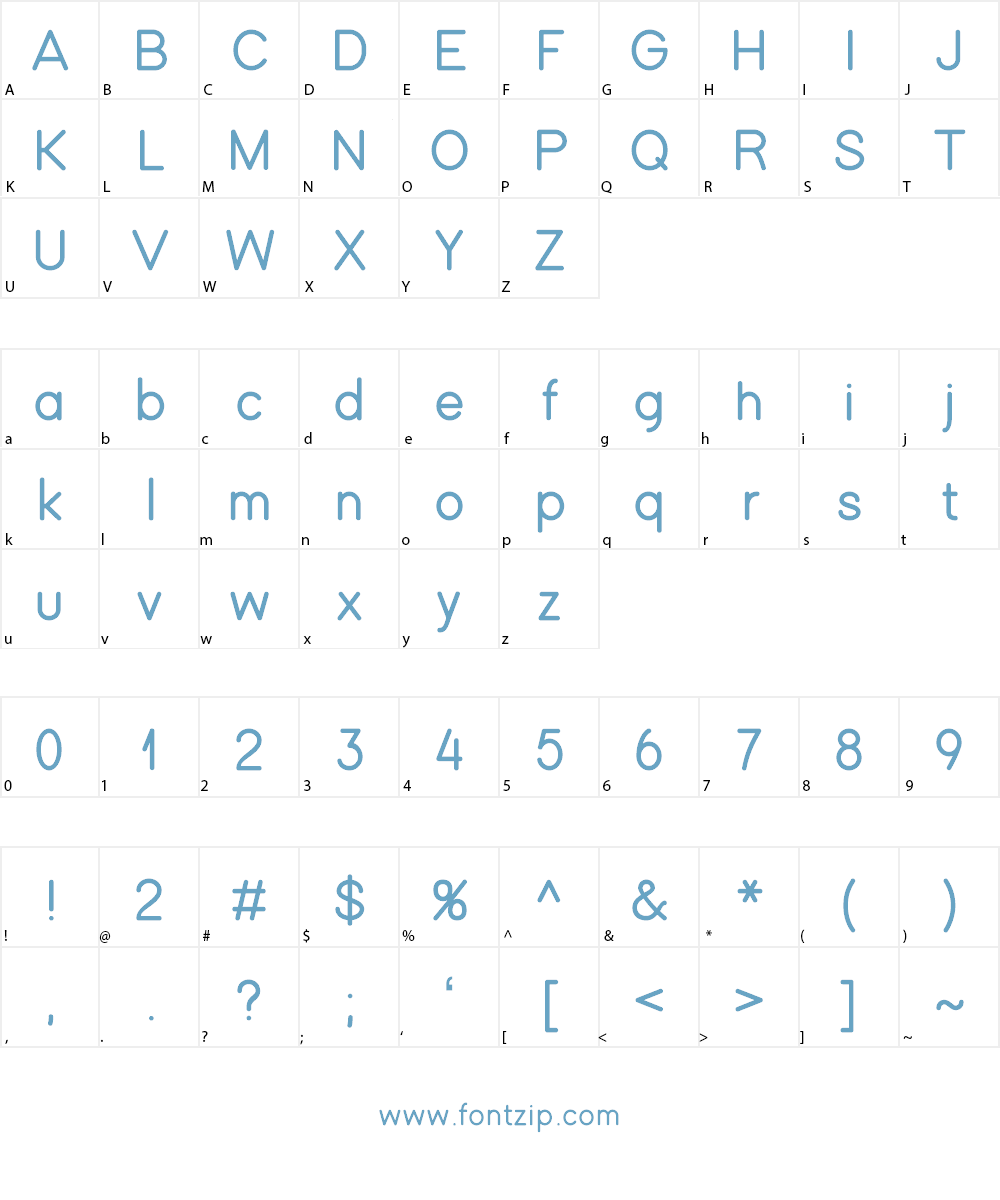
This is my first font so it's very plain. I can't find any other font maker online so I used FontArk. Since this is my first font, it's not the best. If you know any font makers please message me and let me know!